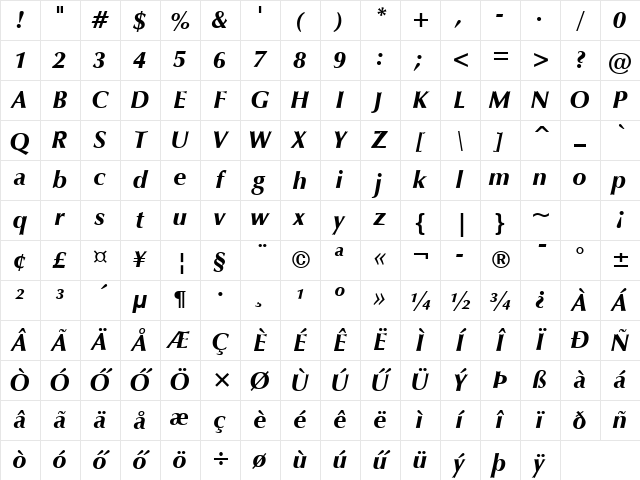
H_ZAPF6 Regular
Design Context for H_ZAPF6
H_ZAPF6 is a composed and adaptable typeface that performs quietly and consistently across a wide range of design contexts.